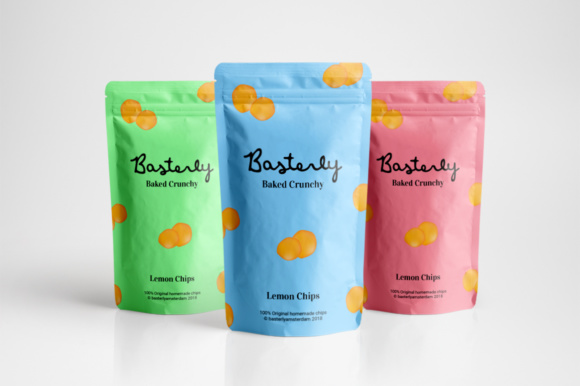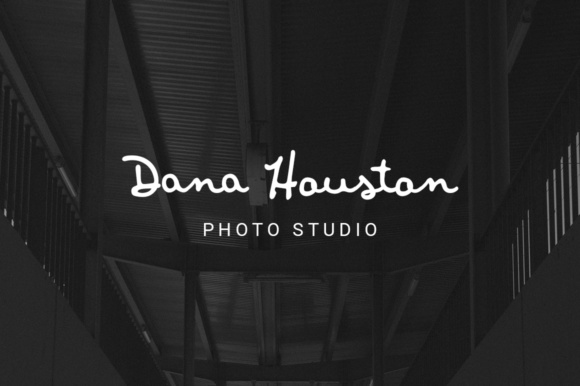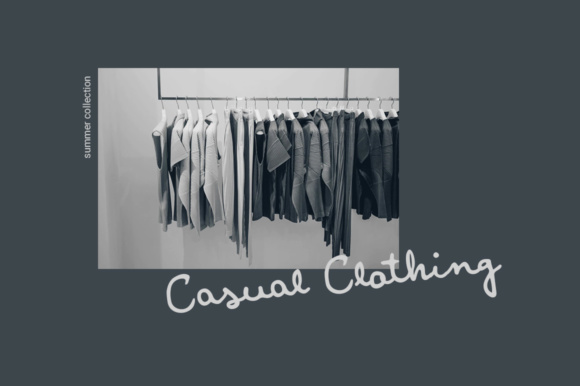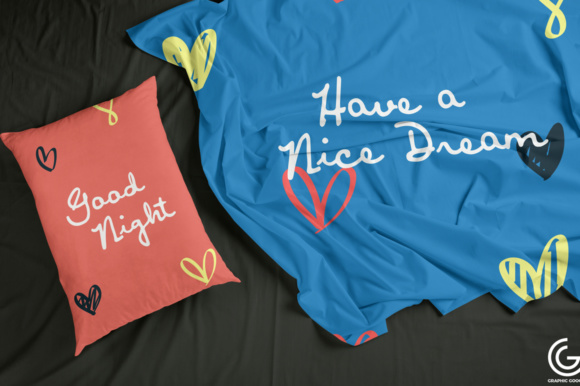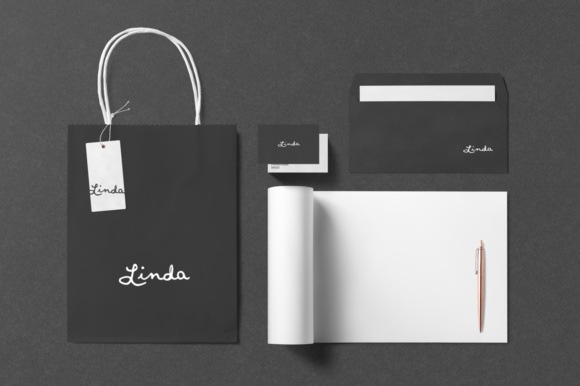
Digger Script Font: Elevate Your Brand with Elegant Handwritten Style
In the world of typography, a well-crafted font can make all the difference in creating a lasting impression. For designers and crafters looking to add a touch of personality to their brand, the Digger Script Font is an excellent choice. This cursive handwritten script boasts a strong personality, making it perfect for those seeking to elevate their brand’s image.
The Story Behind Digger Script Font
The Digger Script Font is a beautiful example of handwritten typography that strives to achieve elegance within its flowing characters. Unlike other fonts that may appear stiff or robotic, Digger’s natural shapes and curves are preserved from the original handwriting, giving it a unique and authentic feel.
Key Features of Digger Script Font
- Strong Personality: The Digger Script Font exudes confidence and style, making it perfect for brands looking to make a statement.
- Elegant and Refined: With its cursive and flowing characters, Digger adds a touch of sophistication to any design.
- Handwritten with Love: The font’s natural shapes and curves are preserved from the original handwriting, giving it a personal and human touch.
- Perfect for Branding: Digger Script Font is ideal for creating a personal image for your brand, setting it apart from the competition.
Why Choose Digger Script Font?
For designers and crafters, finding the right font can be a daunting task. However, with Digger Script Font, you’ll enjoy a range of benefits, including:
- Versatility: Use Digger Script Font across various design projects, from branding and advertising to packaging and stationery.
- Readability: The font’s clear and flowing characters ensure that your message is conveyed with ease, making it perfect for both digital and print applications.
- Uniqueness: Stand out from the crowd with Digger’s distinctive and elegant style, which is sure to leave a lasting impression.
Using Digger Script Font in Your Design Projects
Whether you’re working on a logo, brochure, or website, Digger Script Font can be used in a variety of design projects. Here are some ideas to get you started:
- Logos and Branding: Create a memorable logo that showcases your brand’s personality with Digger Script Font.
- Stationery and Packaging: Add a touch of elegance to your business cards, letterheads, and packaging with Digger’s refined style.
- Digital Applications: Use Digger Script Font in your website, social media graphics, and email marketing campaigns to create a cohesive brand image.
Tips for Pairing Digger Script Font with Other Fonts
To create a visually appealing design, pairing Digger Script Font with other fonts can be an effective strategy. Here are some tips to keep in mind:
- Contrast with Sans-Serifs: Pair Digger Script Font with a clean sans-serif font to create a striking contrast.
- Match with Script Fonts: Combine Digger Script Font with another script font for a elegant and sophisticated look.
- Experiment with Serif Fonts: Pair Digger Script Font with a serif font for a unique and creative design.
In conclusion, the Digger Script Font is an excellent choice for designers and crafters looking to add a touch of elegance and personality to their brand. With its strong personality, flowing characters, and natural shapes, Digger is sure to elevate your brand’s image and leave a lasting impression. So why wait? Try Digger Script Font today and take your design projects to the next level!